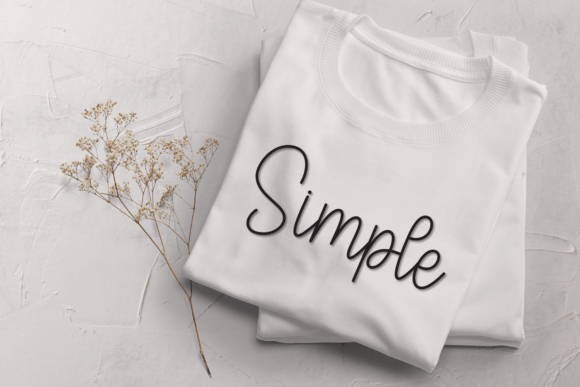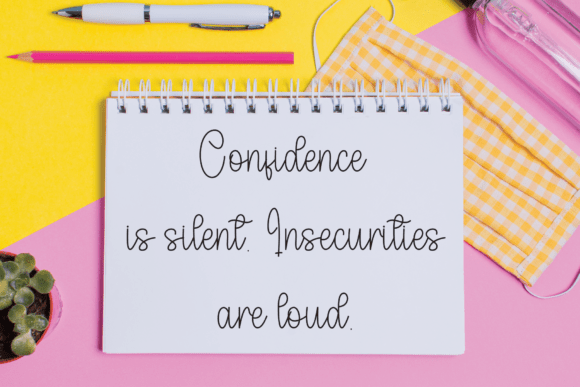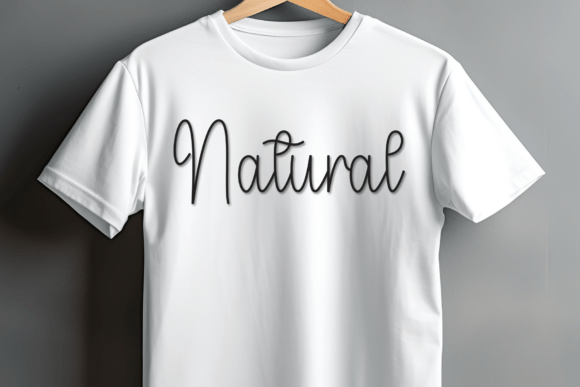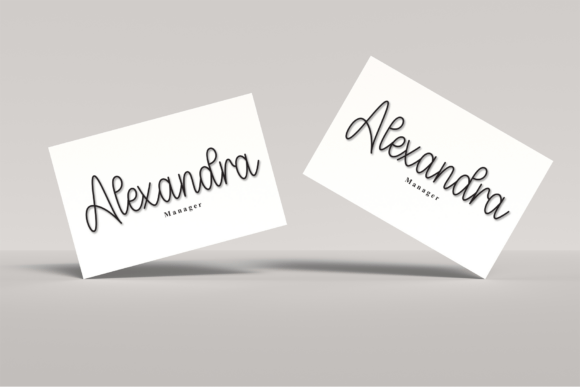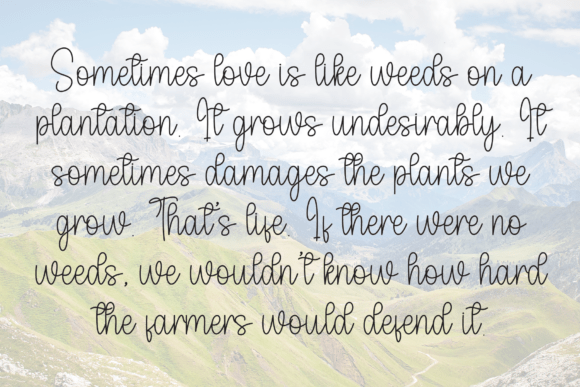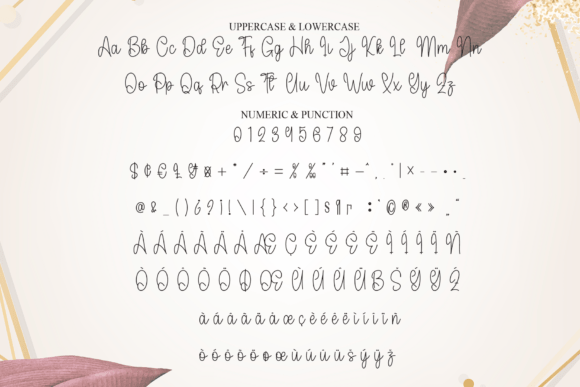
The Art of Elegant Design: Discovering Fancy Font
As a designer, there’s nothing quite like the thrill of bringing a new project to life. You’ve poured over inspiration boards, brainstormed ideas, and finally settled on a concept that sparks joy. But the real magic happens when you find the perfect font to match your vision. For me, that moment came when I stumbled upon Fancy Font – a stylish handwritten script font that added a touch of elegance and whimsy to my design.
Fancy Font is more than just a pretty face; it’s a versatile tool that can elevate invitations, branding, and social media content with its flowing curves and natural rhythm. As a designer, you know how crucial it is to find the perfect font that captures the essence of your project. With Fancy Font, you’ll discover a world of creative possibilities that will leave your audience in awe.
Fancy Font Key Features
- Font Family: Fancy Font is a custom-designed font family consisting of 12 unique styles, each with its own distinct characteristics.
- Unique Characteristics: Features ornate flourishes, intricate details, and elegant curves, making it suitable for formal invitations, wedding stationery, and luxury branding.
- Language Support: Includes support for Latin, Cyrillic, Greek, and many other languages, making it a versatile choice for global designs.
- Kerning and Ligatures: Includes advanced kerning and ligature pairs for improved text flow and readability, ensuring a professional finish in any design.
Fancy Font Review
Fancy Font is a stylish and versatile font that can elevate your design game. Here’s what works well: ✨
- Wide range of styles and weights: Fancy Font offers a diverse range of styles and weights, making it easy to find the perfect fit for your design.
- High-quality typography: The font is well-designed, with clear and readable text that’s perfect for body copy, headings, or even titles.
- Great for creative projects: Fancy Font’s unique styles and flair make it an excellent choice for creative projects, such as magazines, brochures, or posters.
However, there are some limitations to consider: ⚠️
- May not be suitable for formal or professional projects: Fancy Font’s creative and playful vibe might not be the best fit for formal or professional projects.
- Some styles may be too busy: While the font’s unique styles are great for creative projects, some of them may be too busy or overwhelming for certain designs.
- May require adjustments for readability: Depending on the style and weight, Fancy Font may require some adjustments to ensure readability, especially in smaller sizes.
Overall, Fancy Font is a solid choice for designers looking for a stylish and versatile font. While it may have some limitations, its wide range of styles and high-quality typography make it a great addition to any design toolkit.
Fancy Font is perfect for:
- Wedding invitations and event graphics.
- Restaurant menus and signage.
- Personalized gifts and stationery.
- Branding and marketing materials.